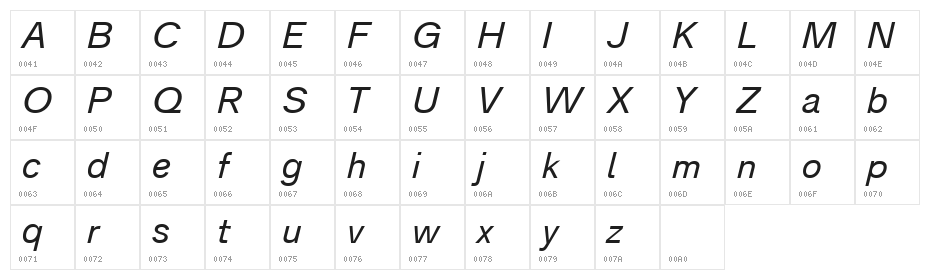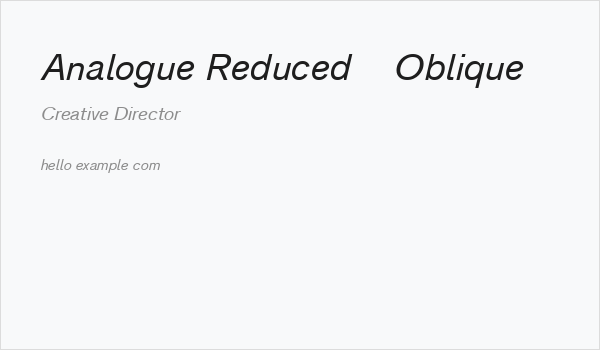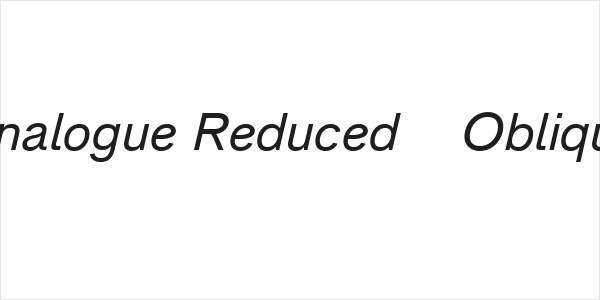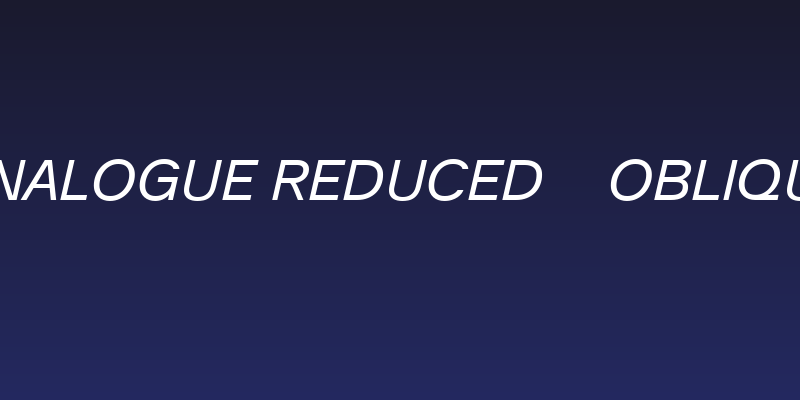
Analogue Reduced 56 Oblique Font
Analogue Reduced 56 Oblique Description
This font features a sleek and modern design with a slight oblique slant, giving it a dynamic and forward-moving appearance. The characters are clean and well-defined, with a consistent stroke width that maintains readability across different sizes. The uppercase and lowercase letters are proportionate, and the numerals are clear and distinct. The font's style is versatile, making it suitable for both digital and print media. Its contemporary look is enhanced by the subtle slant, adding a touch of elegance and sophistication.
| Proposed Projects | Ideal for branding, advertising, digital media, and editorial design. |